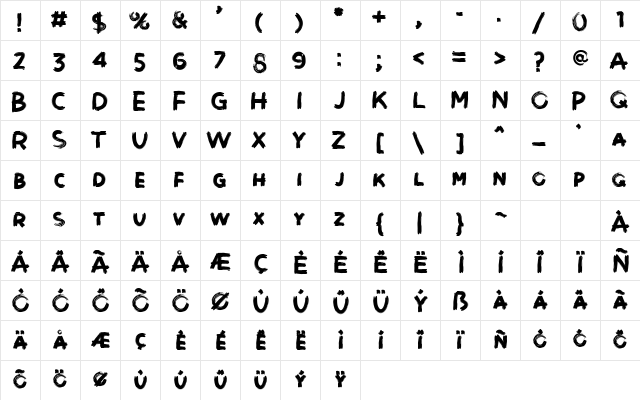
Brushot Bold
| Foundry | Nirmana Visual |
| Designer | Sigit Dwipa |
Design Context for Brushot Typeface
Brushot flows with the natural rhythm of handwritten lettering, making it ideal for designs that call for warmth and personal expression. The heavy weight commands attention and anchors typographic hierarchies.
Font Pairing: Combine Brushot with a simple geometric sans for maximum contrast — the tension between flowing curves and clean structure is a classic typographic pairing.
Pro Tip: Pair Brushot with a clean sans-serif for supporting text. The contrast between fluid script and geometric structure creates an elegant typographic hierarchy.